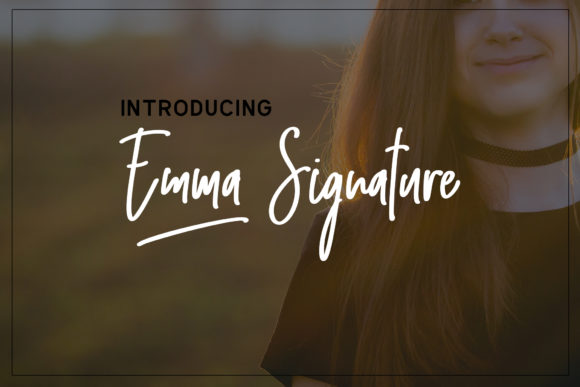
Emma Signature Font: Elevate Your Design with a Modernistic Script Font
In the world of typography, fonts play a crucial role in making or breaking a design project. A well-chosen font can elevate your design, convey the right message, and leave a lasting impression on your audience. If you’re looking for a font that can add a touch of elegance, sophistication, and modernity to your design, look no further than the Emma Signature Font. In this article, we’ll explore the features, benefits, and uses of the Emma Signature Font, and why it’s a must-have for designers and creatives.
What is Emma Signature Font?
Emma is a beautiful and modernistic script font, full of life. It’s designed to turn any design project into a true standout, making it perfect for creatives, designers, and businesses looking to make a statement. With its unique blend of elegance and playfulness, Emma is an excellent choice for a wide range of design applications, from branding and advertising to packaging and digital media.
Key Features of Emma Signature Font
- Modernistic Design: Emma boasts a modern and sleek design, making it perfect for contemporary design projects.
- Script Style: The font features a beautiful script style, adding a touch of elegance and sophistication to any design.
- Full of Life: Emma’s unique design elements give it a lively and energetic feel, making it perfect for designs that require a bit of personality.
- Highly Versatile: The font is highly versatile, making it suitable for a wide range of design applications, from print to digital media.
Benefits of Using Emma Signature Font
So, why choose Emma Signature Font for your design project? Here are just a few benefits of using this amazing font:
- Adds Elegance and Sophistication: Emma’s script style and modernistic design elements add a touch of elegance and sophistication to any design.
- Standout Designs: The font’s unique design elements ensure that your design stands out from the crowd, making it perfect for businesses and creatives looking to make a statement.
- Easy to Read: Despite its elegant and script style, Emma is highly legible, making it easy to read in various design applications.
- Time-Saving: With Emma, you can create stunning designs in no time, saving you time and effort in the design process.
Uses of Emma Signature Font
Emma Signature Font is an incredibly versatile font that can be used in a wide range of design applications, including:
- Branding and Advertising: Use Emma to create stunning brand logos, advertisements, and marketing materials.
- Packaging Design: Add a touch of elegance and sophistication to your packaging design with Emma.
- Digital Media: Use Emma in digital media, such as social media graphics, website headers, and email marketing campaigns.
- Print Design: Emma is perfect for print design applications, including brochures, flyers, and business cards.
Tips and Tricks for Using Emma Signature Font
Here are a few tips and tricks to help you get the most out of Emma Signature Font:
- Pair with Other Fonts: Experiment with pairing Emma with other fonts to create stunning font combinations.
- Adjust Font Size: Adjust the font size to create visual hierarchy and emphasis in your design.
- Use in Combination with Images: Use Emma in combination with images to create stunning visual designs.
In conclusion, Emma Signature Font is a beautiful and modernistic script font that’s perfect for designers, creatives, and businesses looking to elevate their design projects. With its unique blend of elegance, sophistication, and playfulness, Emma is sure to turn any design project into a true standout. Whether you’re working on branding, advertising, packaging, or digital media, Emma is an excellent choice. So why wait? Download Emma Signature Font today and take your design projects to the next level!